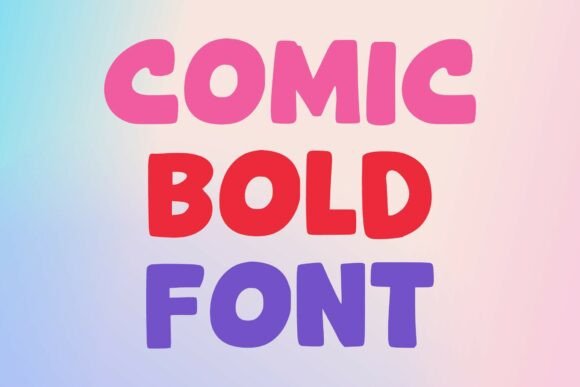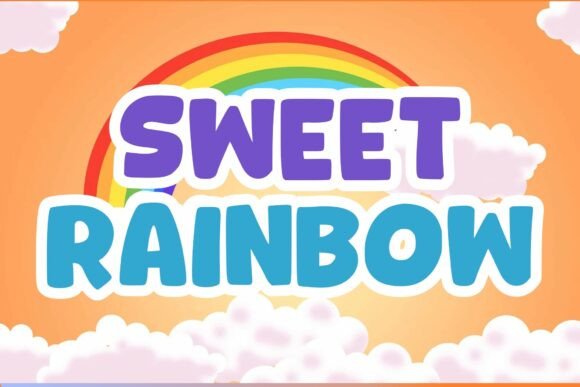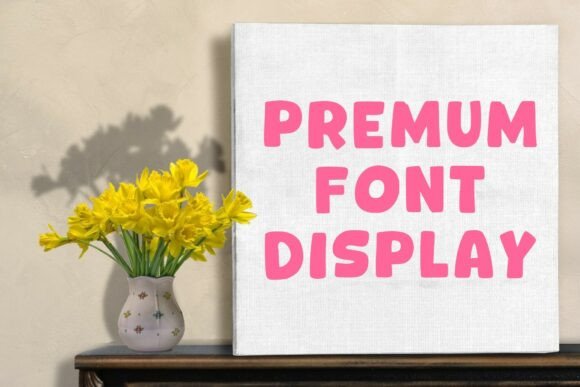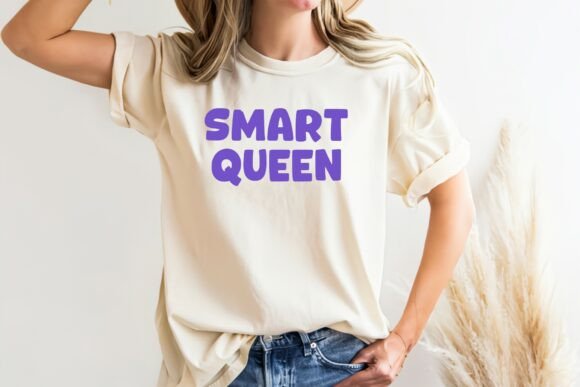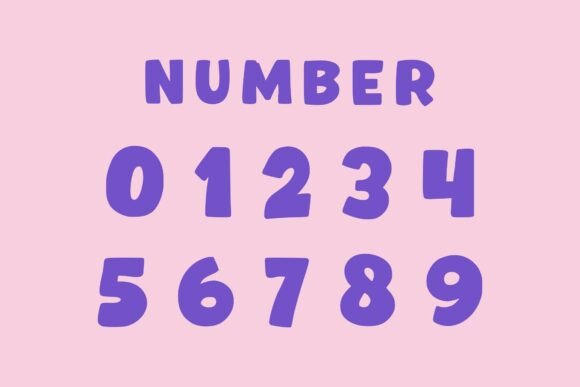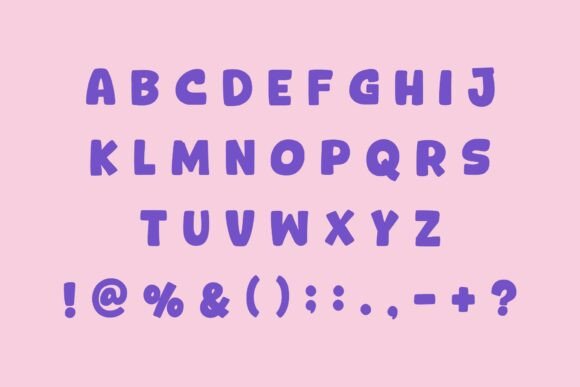
Introduction to Smartpeople Regular Font
Remember the thrill of creating a design that brings a smile to your face and a spark to your imagination? For designers, there’s no greater joy than crafting a project that’s both playful and impactful. It’s in these moments that the perfect font can make all the difference – and that’s where the Smartpeople Regular Font comes in.
With its bold, chunky style and rounded edges, this typeface is a design resource that embodies the essence of comic lettering. Perfect for creative projects that require a dash of fun and vibrancy, Smartpeople Regular Font is a high-quality font that’s as easy to read as it is to love. Whether you’re working on a children’s book, a social media graphic, or a packaging design, this versatile font is sure to add a touch of excitement and creativity to your work.
Key Features of Smartpeople Regular Font
- High-quality design resource ideal for creative projects requiring a modern and sleek look.
- Smartpeople Regular Font is available in a single size, making it easy to use in various design contexts.
- Unique characteristic: Smartpeople Regular Font’s clean and minimalist design makes it perfect for use in logos, branding materials, and other visual identity elements.
Honest Review: Smartpeople Regular Font
I recently had the chance to work with the Smartpeople Regular Font, and I must say it’s been a great addition to my design resource library. One of the things that really stands out about this font is its high quality and versatility. It’s perfect for any creative project that requires a clean and modern look.
Here are some things that work well with the Smartpeople Regular Font:
- ✨ High quality and clear typography
- ✨ Great for creative projects that require a modern and clean look
- ⚠️ Limited font sizes and weights, making it less versatile than some other fonts
- ⚠️ Not ideal for projects that require a lot of bold or italic text
Overall, I’m really impressed with the Smartpeople Regular Font. It’s a great addition to any designer’s library, and I would definitely recommend it to anyone looking for a high-quality font for their next creative project.
Use the Smartpeople Regular Font for headings, titles, and body text to create a consistent look. Experiment with different font sizes and combinations to add visual interest.
The Smartpeople Regular Font is suitable for:
- Website design and content
- Social media graphics and ads
Comparison: While Smartpeople Regular Font has a more unique style, Open Sans Font is more versatile and widely used in the design industry.
Lato Font is a free download that is perfect for designers working on creative projects that require a high-quality, modern font. Its transparent background and clean design make it ideal for use in digital products.